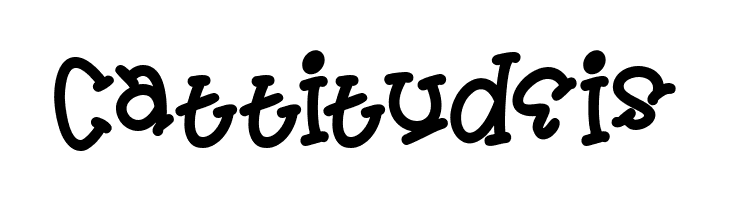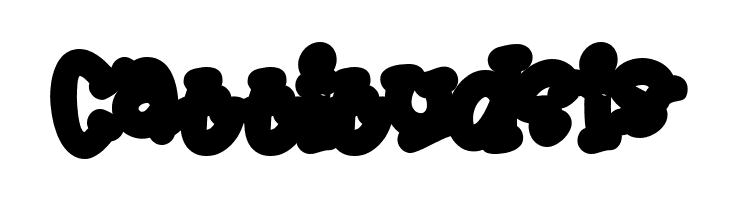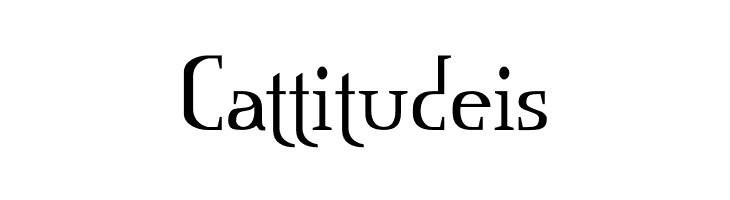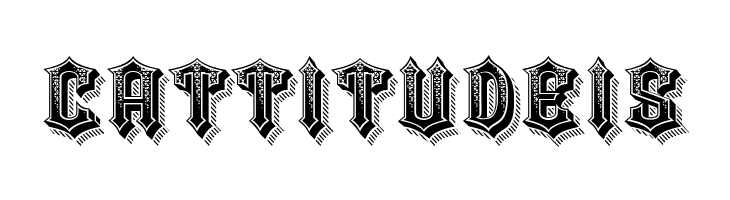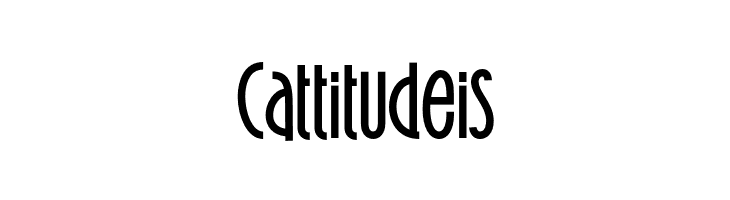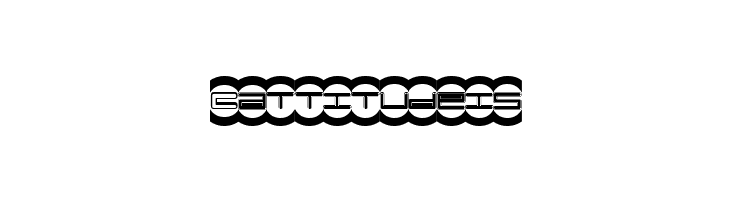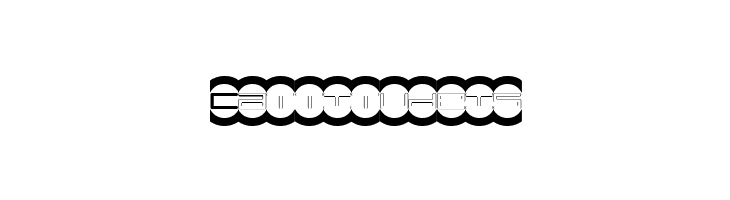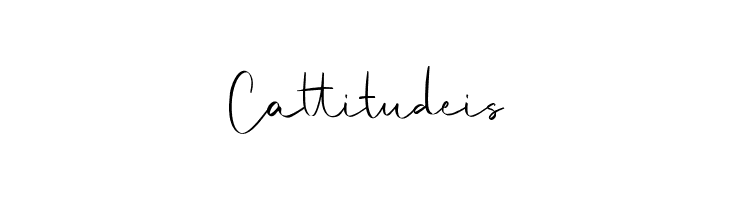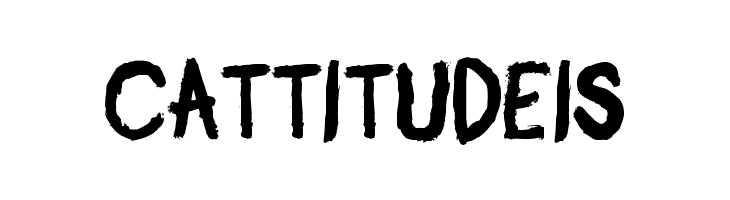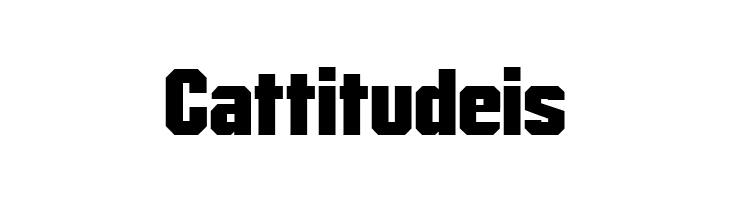
A bold, modern font with thick, uniform strokes and a slightly condensed style.
A playful, handwritten font with bold, rounded characters.
An elegant script font with flowing, interconnected letters and ornate swashes.
A casual handwritten font with dynamic strokes and a lively appearance.
An elegant, flowing script font with graceful loops and a sophisticated charm.
A hand-drawn, sketch-style font with textured, artistic characters.
A dynamic, expressive handwritten font with fluid, cursive letterforms.
A bold, playful font with rounded edges and a whimsical style.
A bold, playful font with thick, rounded strokes and a whimsical style.
A bold, playful font with rounded edges and unique curves.
A playful and elegant script font with a flowing, handwritten style.
A bold, decorative font with a 3D shadow effect and geometric structure.
A bold, playful font with a hand-drawn, rounded style.
A graceful and elegant script font with flowing, connected strokes.
A whimsical and flowing script font with elegant, fluid letterforms.
A dynamic and expressive script font with fluid, cursive letterforms.
A playful, handwritten font with bold strokes and a dynamic, informal style.
A futuristic, angular font with sharp edges and geometric forms.
A bold, playful font with rounded edges and a friendly appearance.
A bold, geometric font with sharp angles and a blocky appearance.